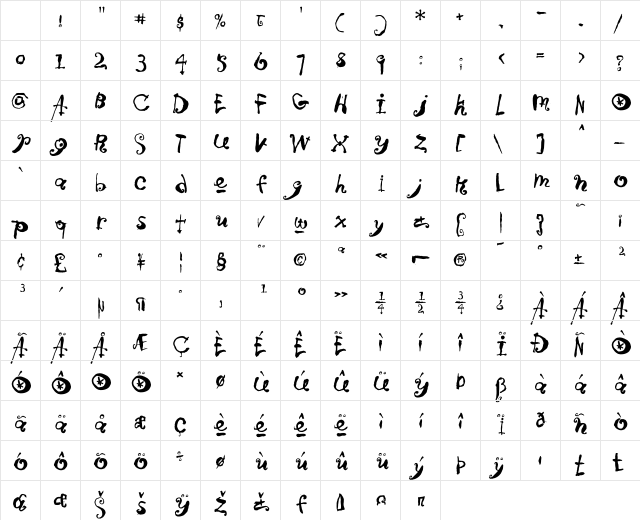
Complete Voiture Plat glyph index. Displaying only characters natively supported by Voiture Plat font.
Voiture is a composed and adaptable typeface that performs quietly and consistently across a wide range of design contexts.